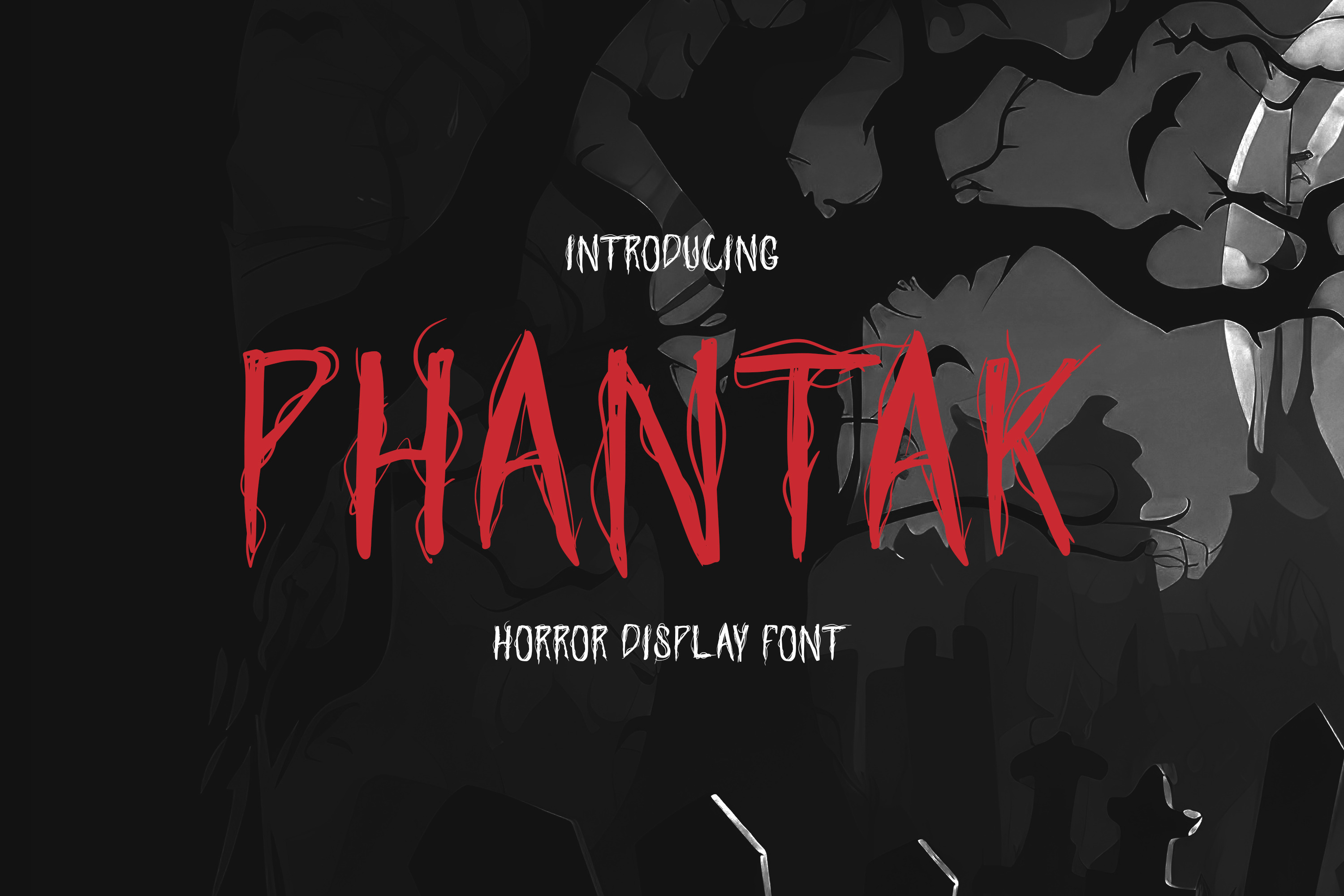
Phantak - Horror Font
PHANTAK is a font that delves into the depths of horror and the supernatural. This font is a chilling and haunting typeface that instills fear and dread, making it the perfect choice for horror-themed projects, spooky stories, and macabre designs.